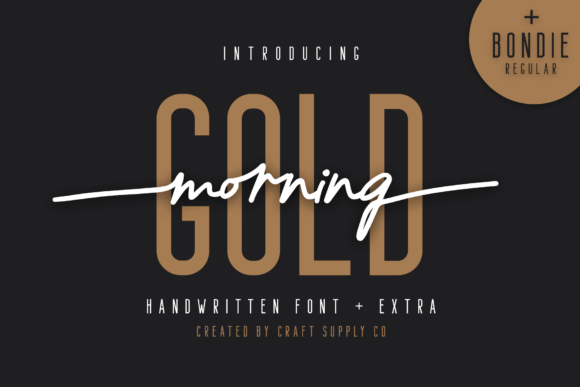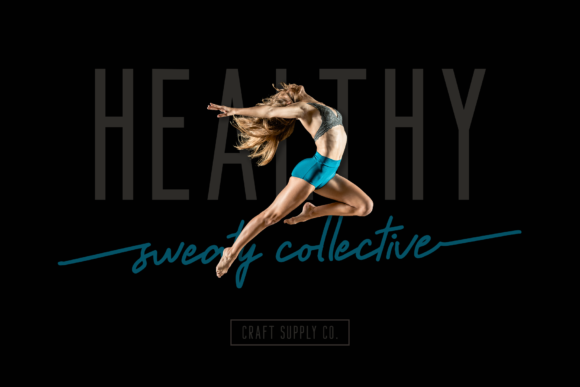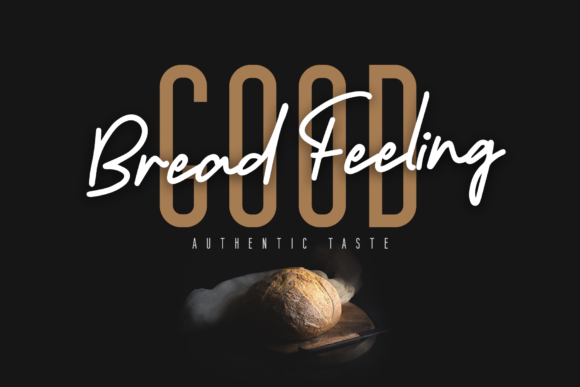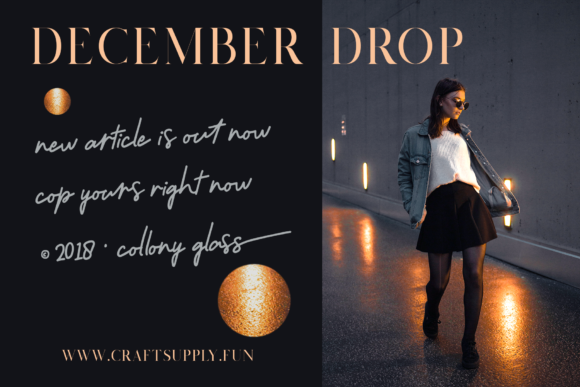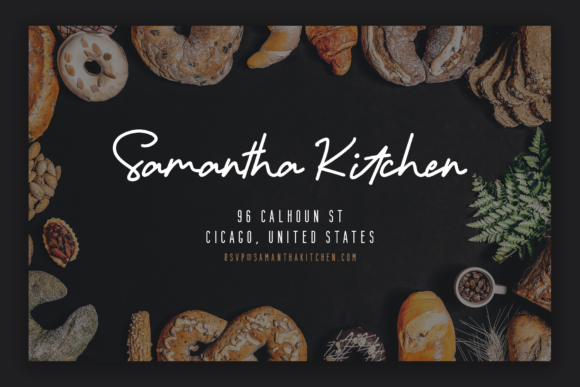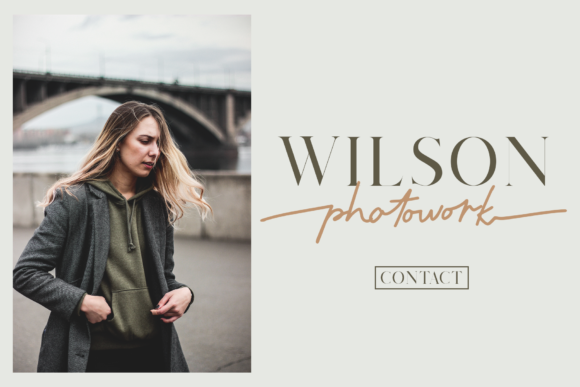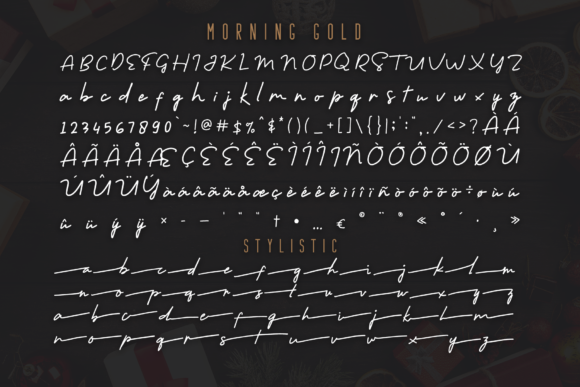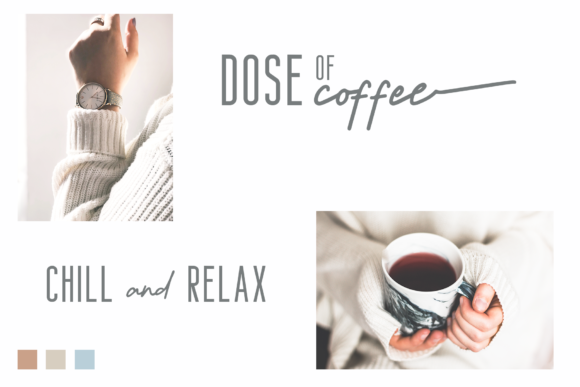
Morning Gold Font
About Morning Gold Font
Morning Gold is a handwritten script font based on the expression of real handwriting. It will work perfectly for fashion, e-commerce brands, trend blogs, wedding boutiques or any business that wants to appear upscale and chic.